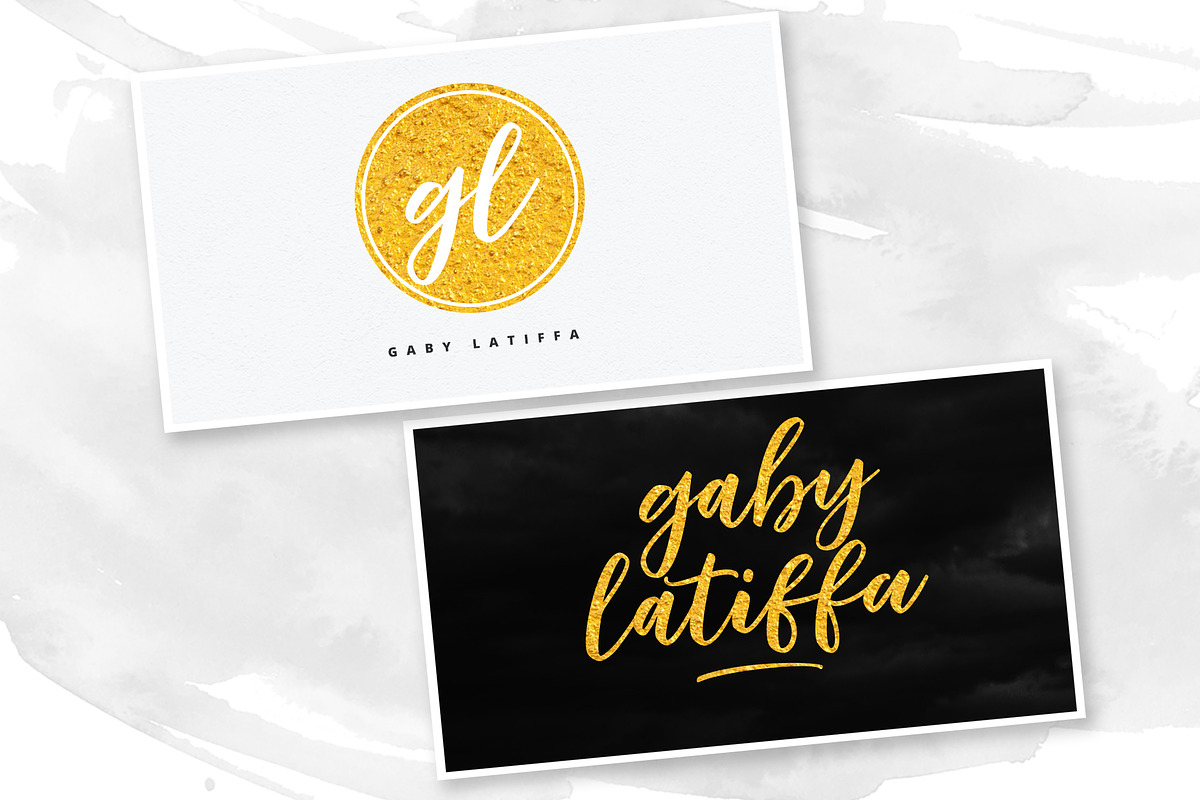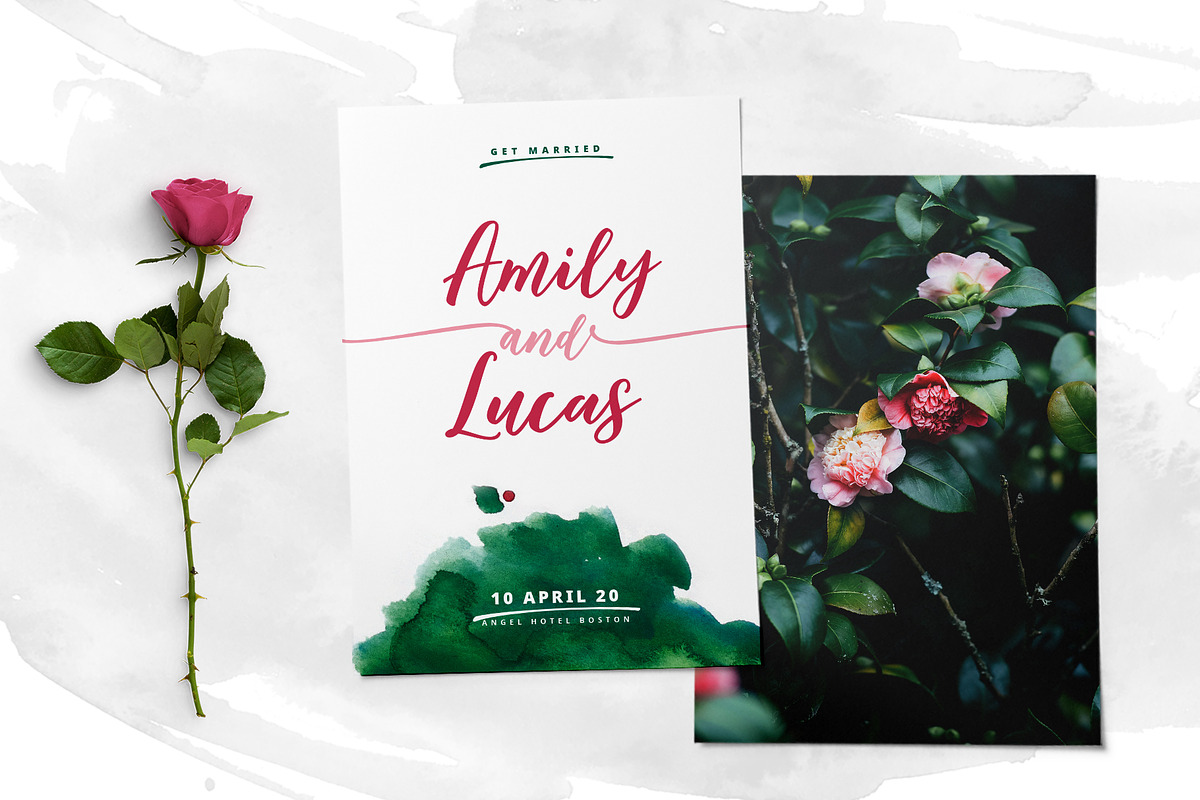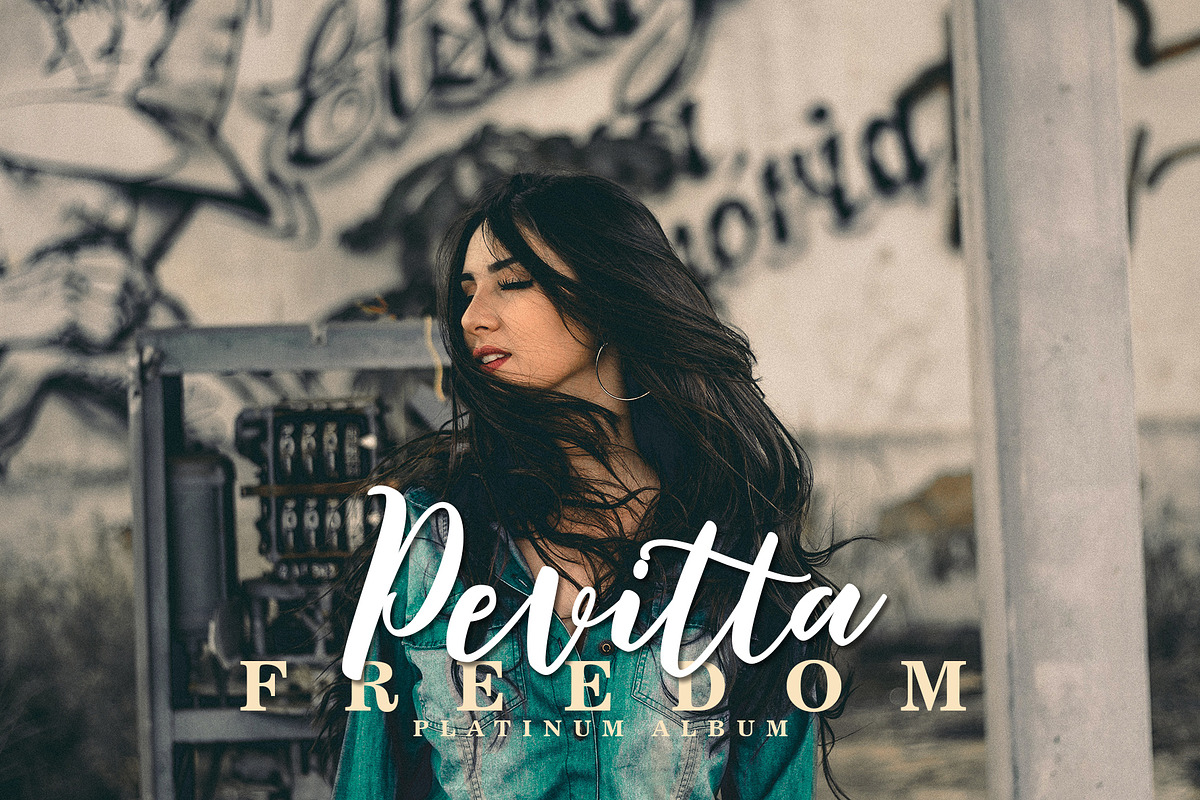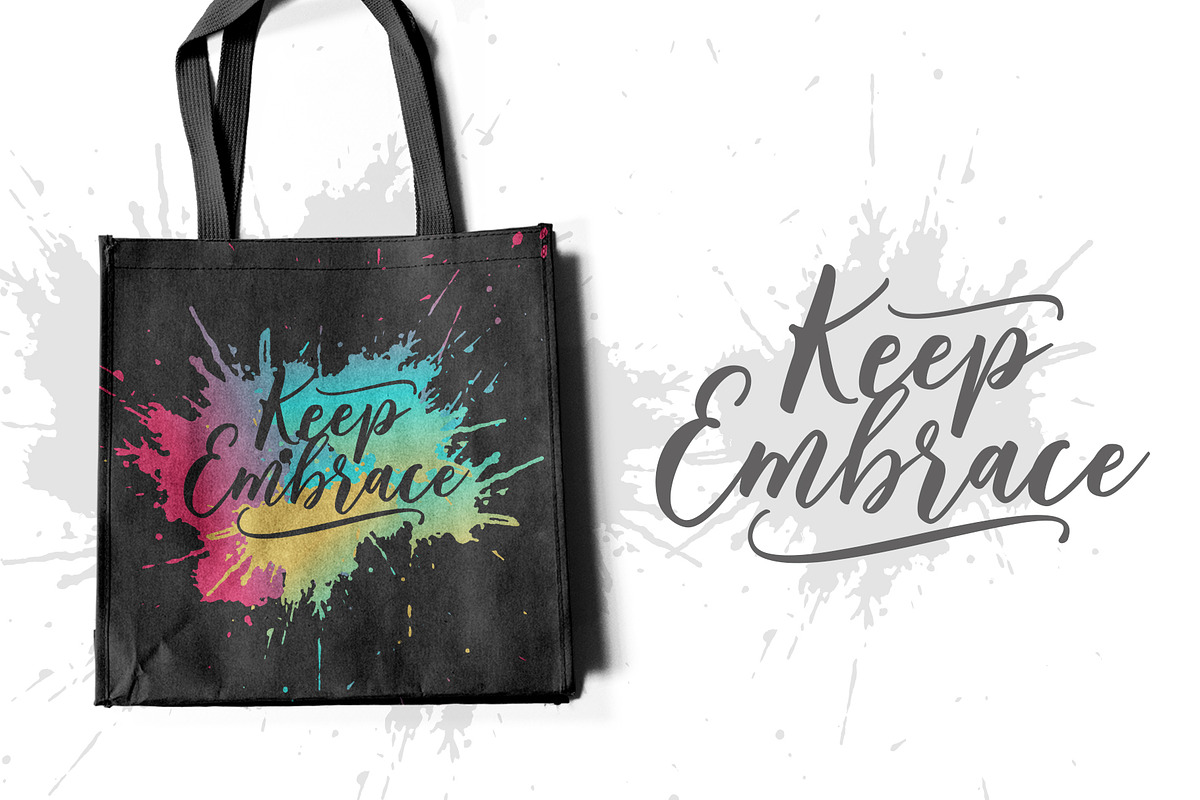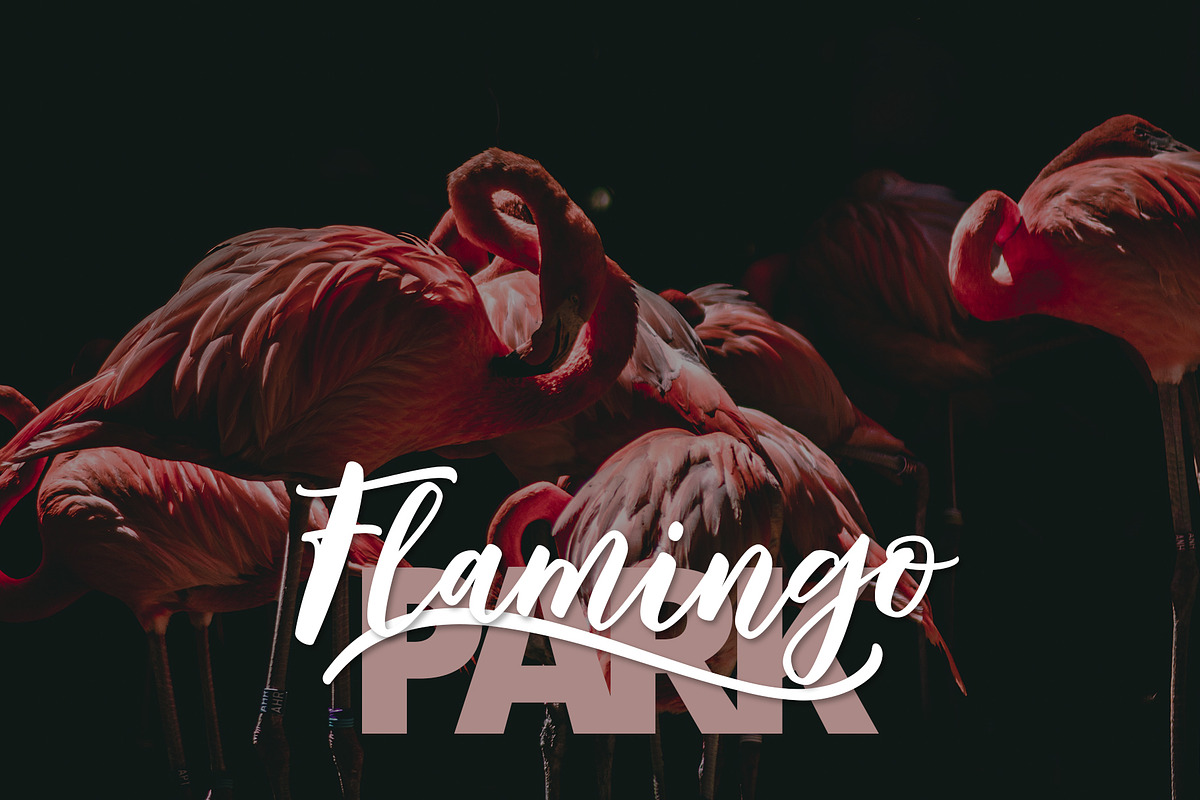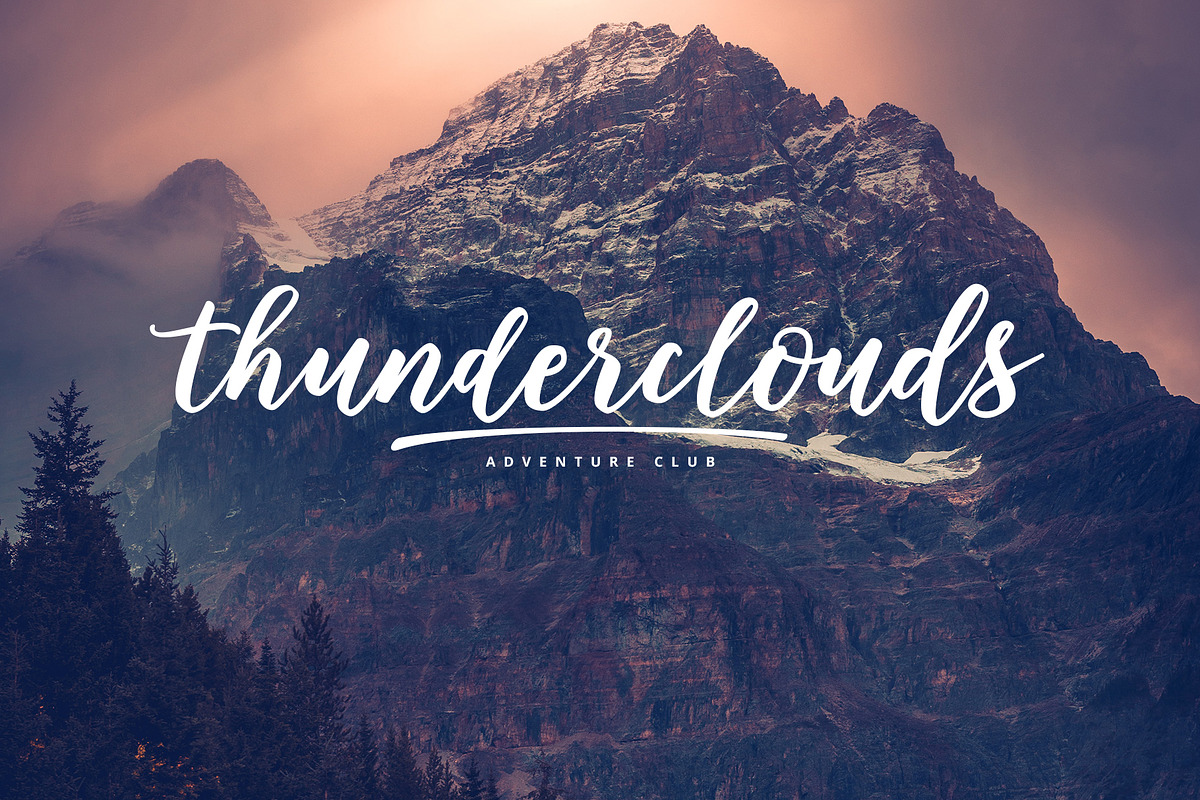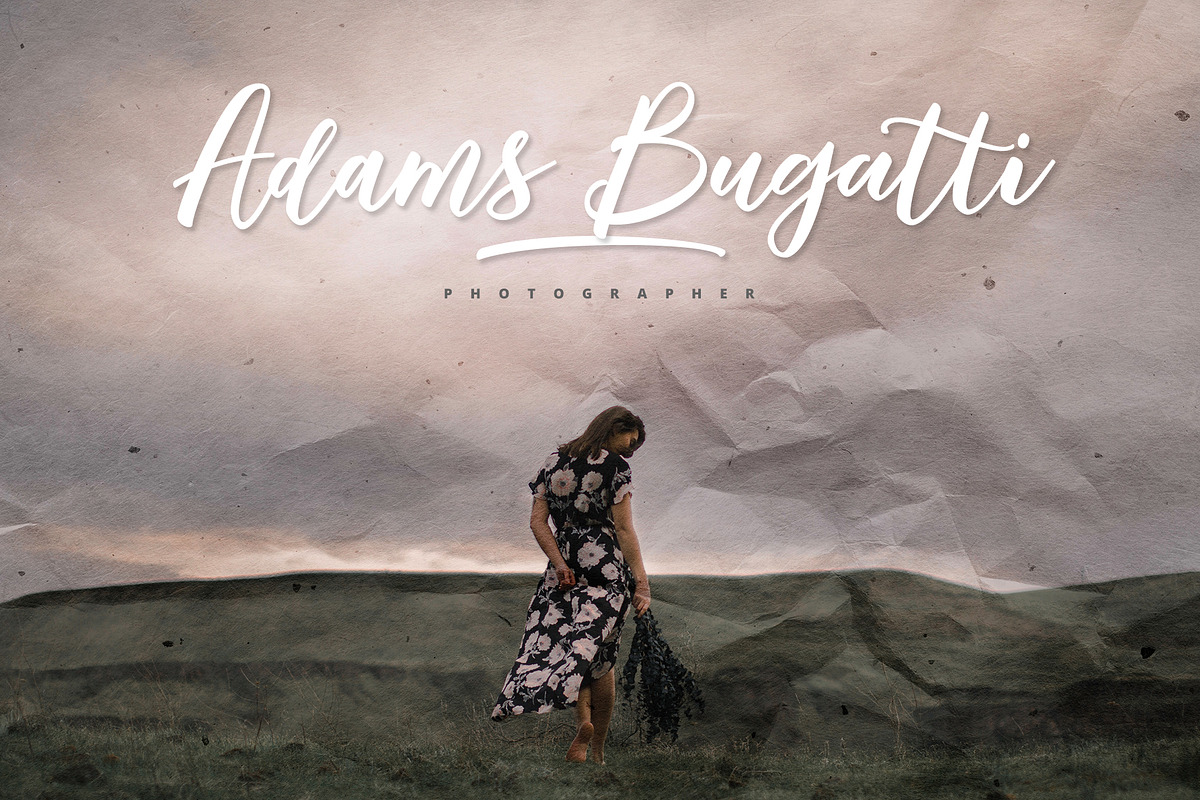
Blukade Handwritten Font
Blukade is a handwritten script with a style elegant, sweet and simple. Very suitable to meet your various design needs that are trending now and available Extra to beautify it!
With a style like this, this font will be suitable in use for comic, logo's, branding projects, homeware designs, product packaging, mugs, quotes, posters, shopping bags, logo's, t-shirts, book covers, name card, invitation cards, greeting cards, and all your other lovely projects.
You can use this font for your job very easily. Because there are many features in it. Contains the complete set of lower and uppercase letters, punctuation, numbers, web fonts, and multilingual support. This font also includes several ligatures and alternative style Stylistic Set For those of you who have software that is capable of working OpenType (Corel Draw / Photoshop / Illustrator / InDesign).
- Contains the complete set of lower and uppercase letters, punctuation, numbers, web fonts, and multilingual support.
Why Blukade Handwritten Font is worth a look
Blukade Handwritten Font by FadeLine Studio fits naturally into Branding, posters, packaging, typography.